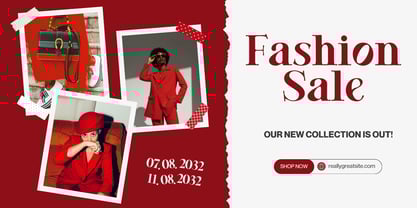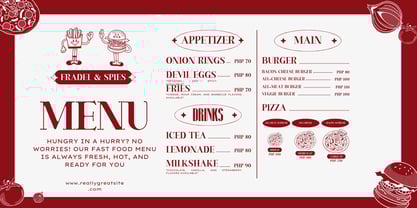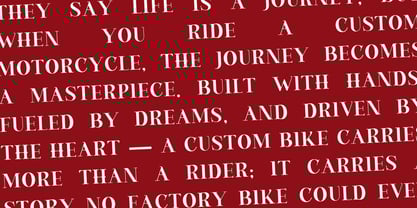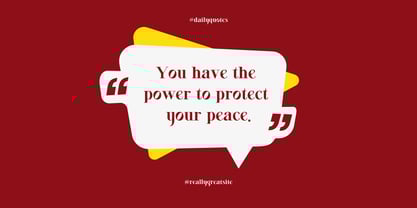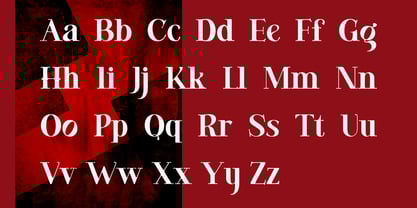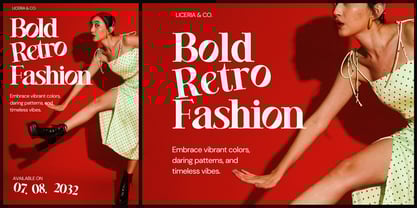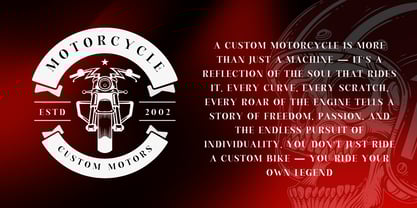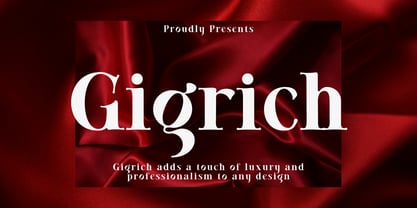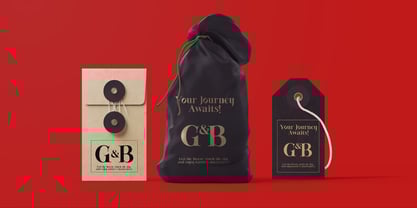
Gigrich
by Beary
The Gigrich Font Family was designed by Dian Haniffan Hadi and published by Beary. Gigrich contains 1 styles. More about this family
Gigrich is a classic serif font that brings a sense of elegance and timeless sophistication with a modern twist. Its signature feature lies in the soft, rounded edges, giving each letter a gentle yet confident appearance.
Perfect for logos, magazines, invitations, branding, and various creative projects, Gigrich delivers a refined look while maintaining a warm and approachable feel.
With the perfect blend of classic charm and smooth details, Gigrich adds a touch of luxury and professionalism to any design.